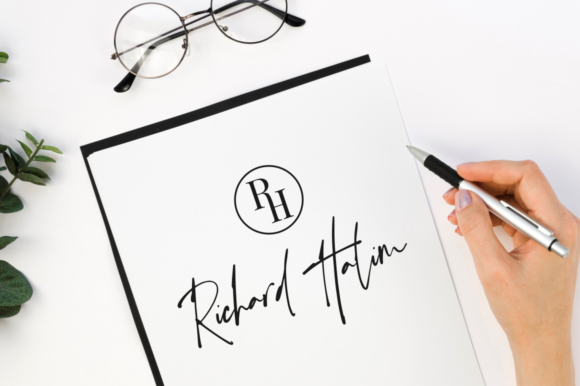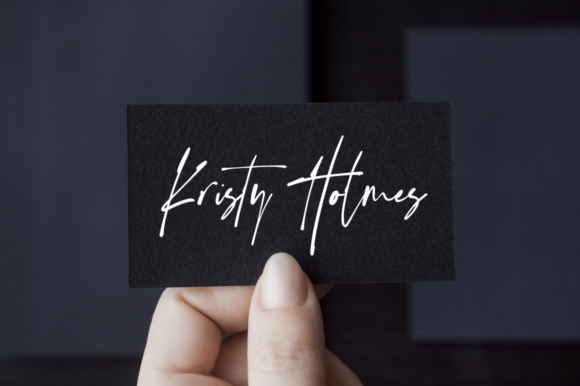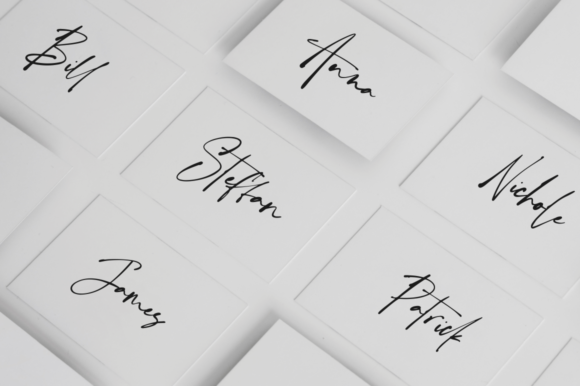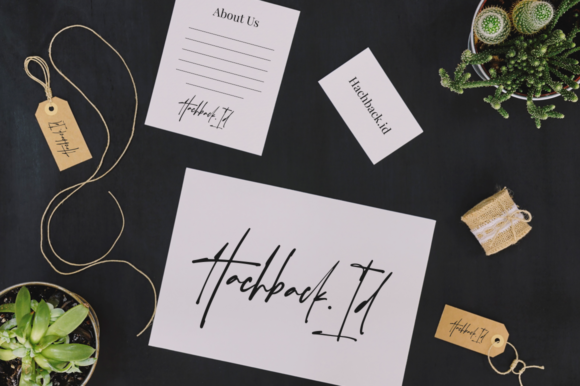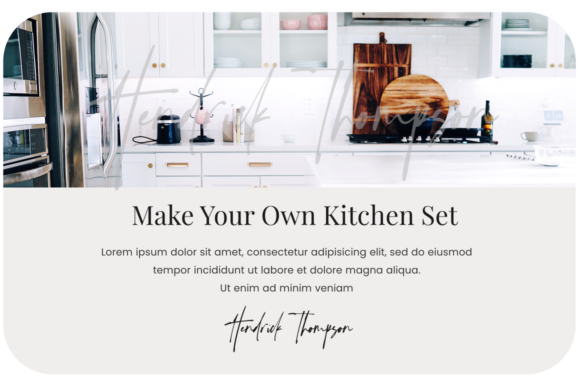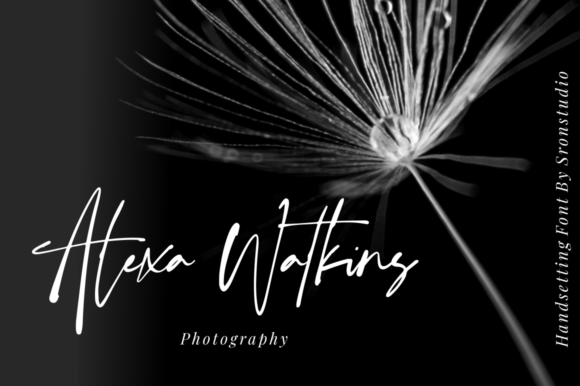
Introducing Handsetting: The Ultimate Relaxed and Timeless Handwritten Font
Are you a designer or crafter looking for a font that can add a personal touch to your designs? Look no further than Handsetting, a beautiful and unique handwritten font that’s perfect for creating eye-catching logos, branding, and quotes. In this article, we’ll dive into the world of Handsetting and explore its features, benefits, and uses.
What is Handsetting?
Handsetting is a carefully crafted handwritten font that’s designed to bring a sense of relaxation and timelessness to your designs. Each letter has been meticulously created to have a unique and beautiful touch, making it perfect for designers and crafters who want to add a personal touch to their work.
Features of Handsetting
- Unique and Beautiful Touch: Every letter in Handsetting has been carefully crafted to have a unique and beautiful touch, making it perfect for creating eye-catching designs.
- Relaxed and Timeless: Handsetting has a relaxed and timeless feel that’s perfect for creating designs that are both modern and classic.
- Perfect for Logos and Branding: Handsetting is ideal for creating logos, branding, and quotes that require a personal touch.
- Easy to Read: Despite its unique and handwritten nature, Handsetting is easy to read and understand, making it perfect for body text and headlines.
Benefits of Using Handsetting
So why choose Handsetting over other fonts? Here are just a few benefits of using this amazing handwritten font:
- Stand Out from the Crowd: With Handsetting, you can create designs that stand out from the crowd and grab attention.
- Add a Personal Touch: Handsetting allows you to add a personal touch to your designs, making them more relatable and engaging.
- Versatile: Handsetting is a versatile font that can be used for a wide range of design projects, from logos and branding to quotes and body text.
Uses of Handsetting
So what can you use Handsetting for? Here are just a few ideas to get you started:
- Logos and Branding: Use Handsetting to create unique and eye-catching logos and branding for your business or personal project.
- Quotes and Posters: Handsetting is perfect for creating inspirational quotes and posters that require a personal touch.
- Body Text: Despite its handwritten nature, Handsetting is easy to read and can be used for body text in a variety of design projects.
- Stationery and Cards: Use Handsetting to create beautiful and unique stationery and cards that are perfect for special occasions.
Tips for Using Handsetting
Here are a few tips for using Handsetting to get the most out of this amazing font:
- Experiment with Different Sizes: Handsetting looks great in a variety of sizes, so experiment with different sizes to find the one that works best for your design.
- Pair with Other Fonts: Handsetting pairs well with other fonts, so try pairing it with a bold font for headlines or a sans-serif font for body text.
- Use for Emphasis: Use Handsetting to add emphasis to certain words or phrases in your design.
In conclusion, Handsetting is a beautiful and unique handwritten font that’s perfect for designers and crafters who want to add a personal touch to their designs. With its relaxed and timeless feel, Handsetting is ideal for creating eye-catching logos, branding, and quotes that stand out from the crowd. So why not give Handsetting a try and see the difference it can make in your designs?